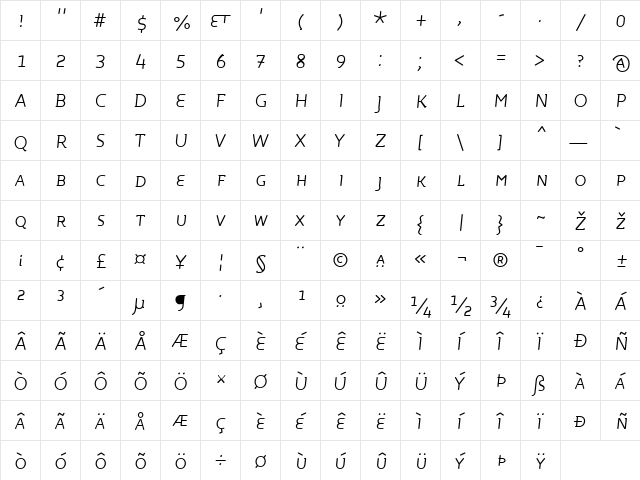
Roice-LightItalicSC Regular Font Preview
| Foundry | Alex Scholing, published by FontShop International for the FontFont library |
Design Context for Roice-LightItalicSC Typeface
Roice-LightItalicSC takes a measured approach to typography — its balanced proportions and neutral character make it a reliable workhorse for both digital and print work. The dynamic lean of this cut emphasises speed and emphasis in any layout. Its slender proportions lend an understated elegance to any composition.